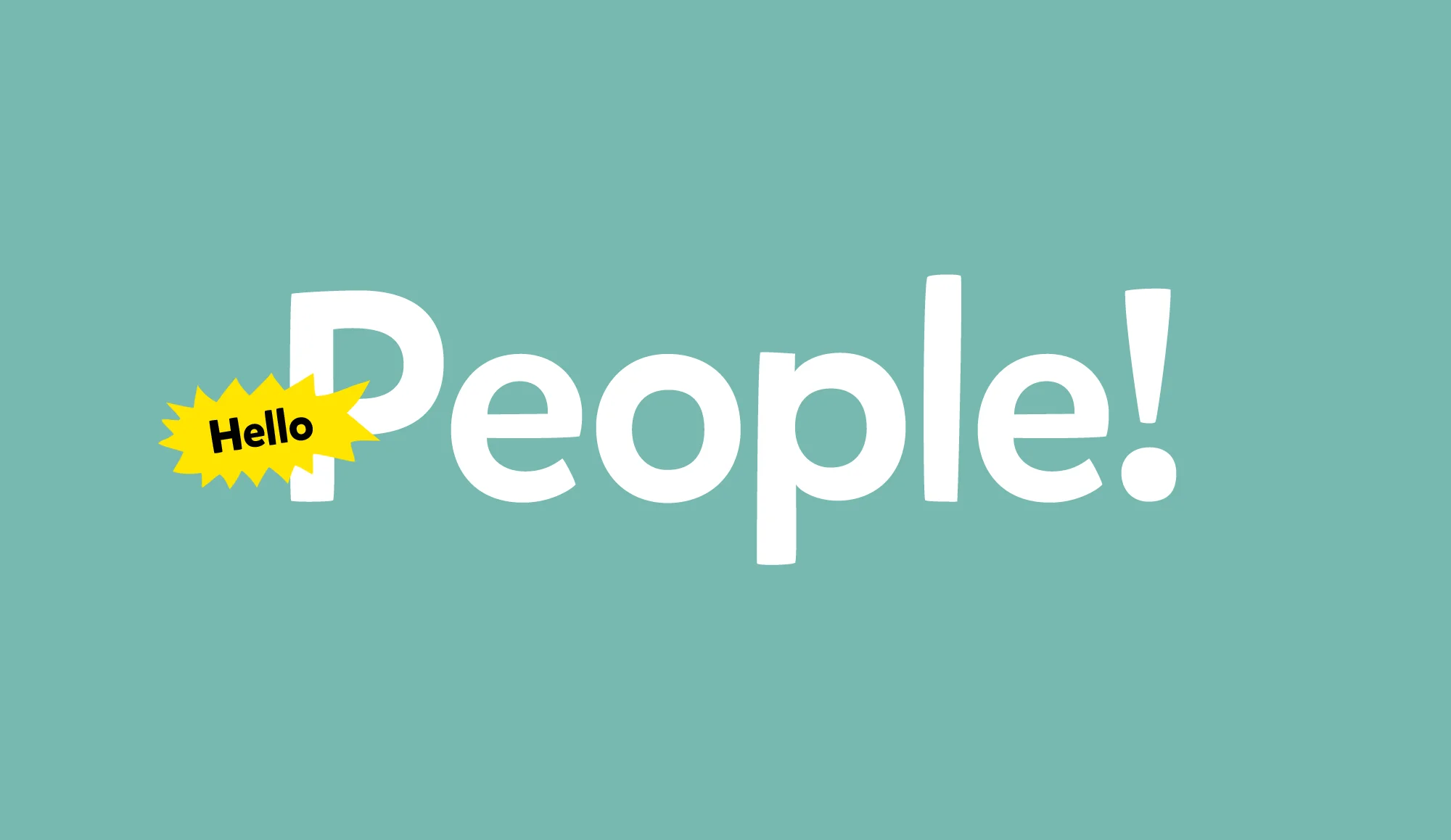
Mikado
A rounded geometric sans by Hannes von Döhren with a warm, approachable character suited to branding and display use.
Designed by Hannes von Döhren of HvD Fonts, Mikado draws on geometric sans-serif traditions but softens them with rounded terminals and a friendly overall tone. The family spans six weights from Thin to Black, making it versatile across headline and identity applications. Its unpretentious geometry and even rhythm work well in consumer-facing contexts where warmth is required.
Mikado is a geometric sans-serif with rounded, friendly forms and a low-contrast construction typical of mid-century geometric revival designs.